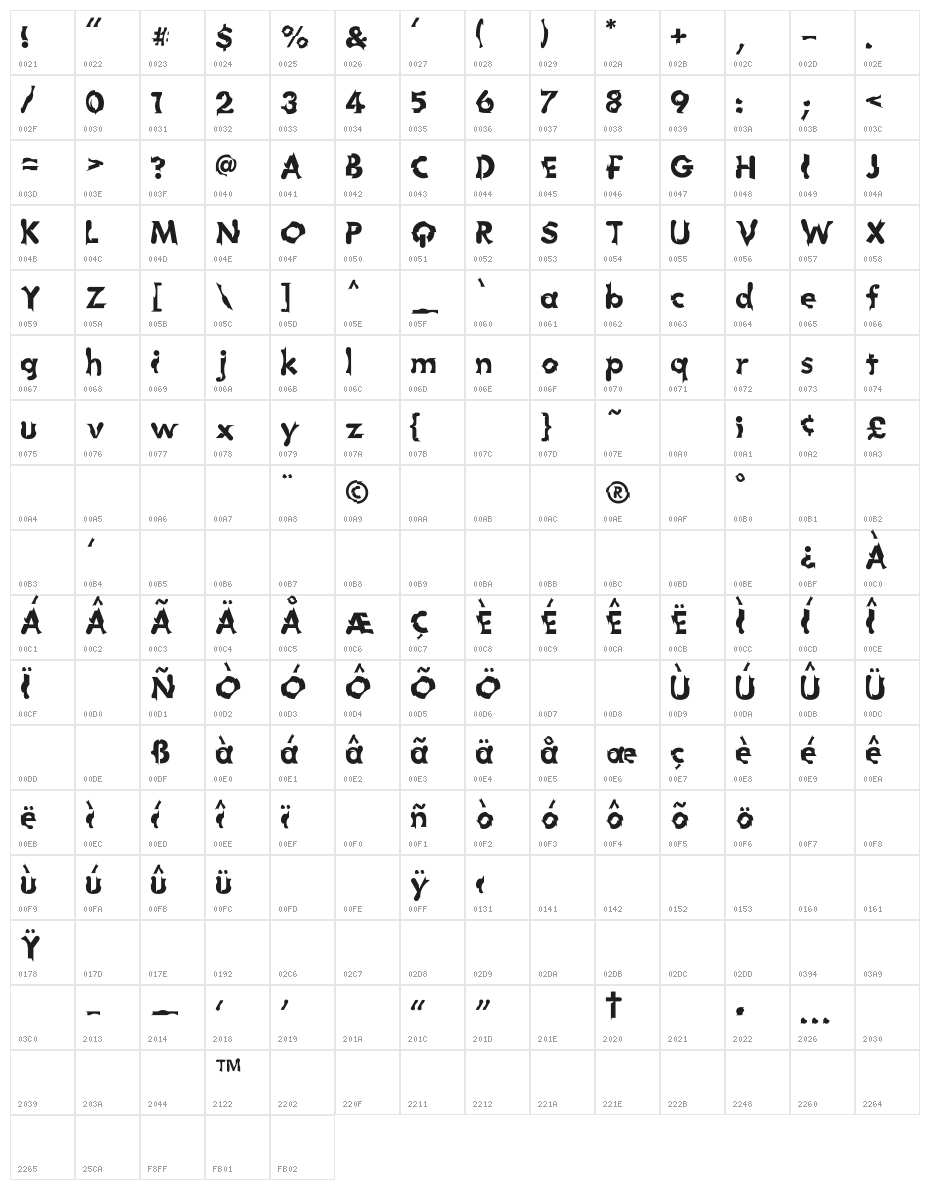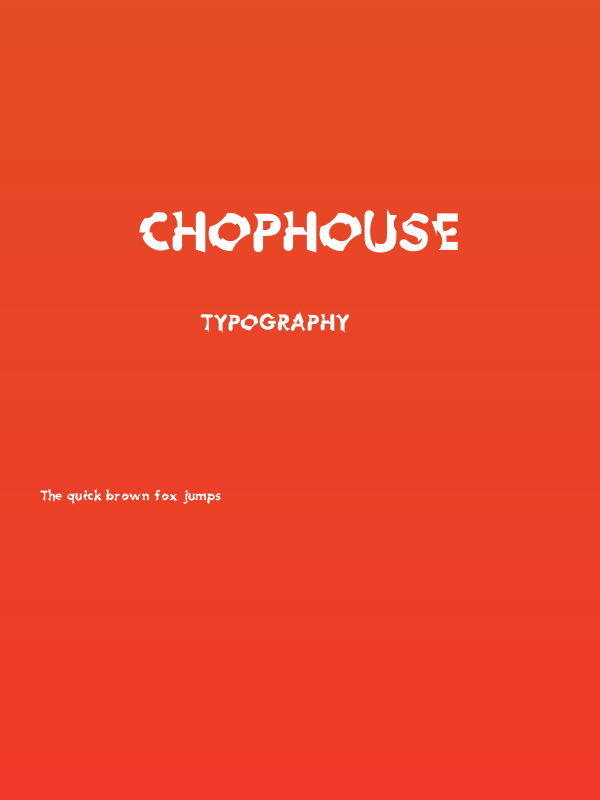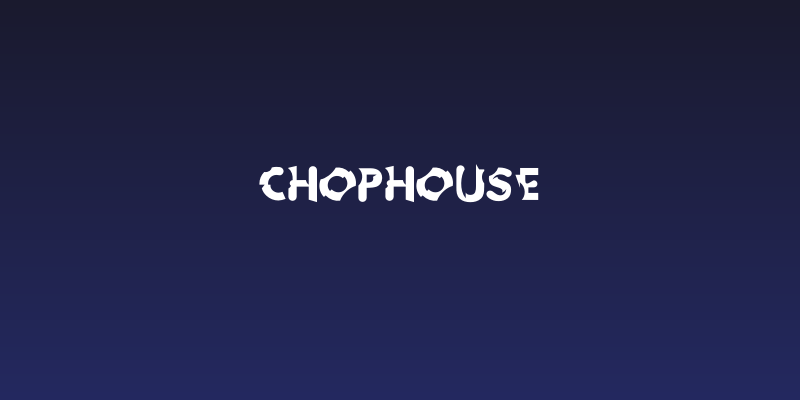
Chophouse Font
Chophouse Description
This font features a bold and dynamic style with sharp, angular edges and a slightly distressed appearance. The uppercase letters are particularly striking, with unique cutouts and a strong presence. The lowercase letters maintain the same boldness, offering a cohesive look across the alphabet. Numbers and special characters are designed with the same attention to detail, ensuring consistency throughout. This font's distinctive style makes it stand out, offering a modern twist on traditional letterforms. The overall aesthetic is both eye-catching and versatile, suitable for a variety of creative applications.
| Proposed Projects | Ideal for branding, posters, and headlines that require a strong visual impact. |